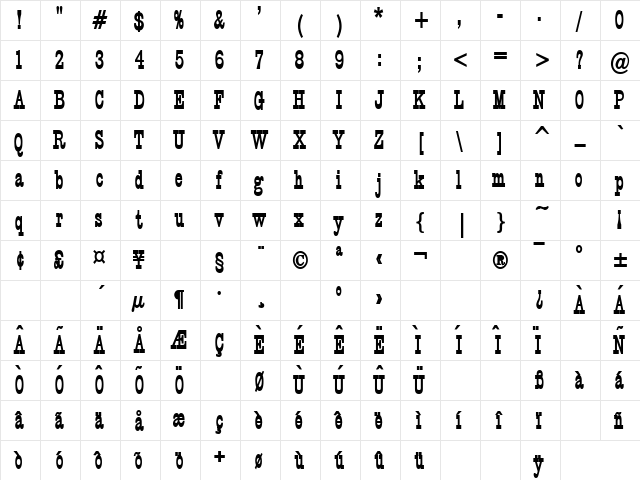
Complete Circus Thin Bold glyph index. Displaying only characters natively supported by Circus Thin Bold font.
Circus Thin is a composed and adaptable typeface that performs quietly and consistently across a wide range of design contexts. Its bold stroke weight gives it real presence on the page.
Pro Tip: Use Circus Thin in both headline and body roles to test its range before committing to a single application.